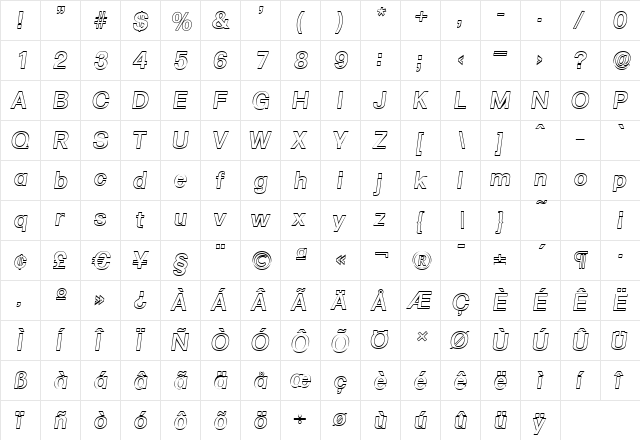
AdamBeckerOutline-Medium Italic Font Preview
AdamBeckerOutline-Medium Italic
AdamBeckerOutline-Medium Italic Font Details
Design Context for AdamBeckerOutline-Medium Typeface
AdamBeckerOutline-Medium is built around its visual character rather than neutral utility — its distinctive forms are designed to make an impression at display sizes. The dynamic lean of this cut emphasises speed and emphasis in any layout.
Font Pairing: Pair with a clean neutral sans-serif for body copy to let AdamBeckerOutline-Medium's character lead without overwhelming the composition.
Pro Tip: Treat AdamBeckerOutline-Medium as the centrepiece of your typographic hierarchy. One strong heading set in a decorative face can carry an entire layout.